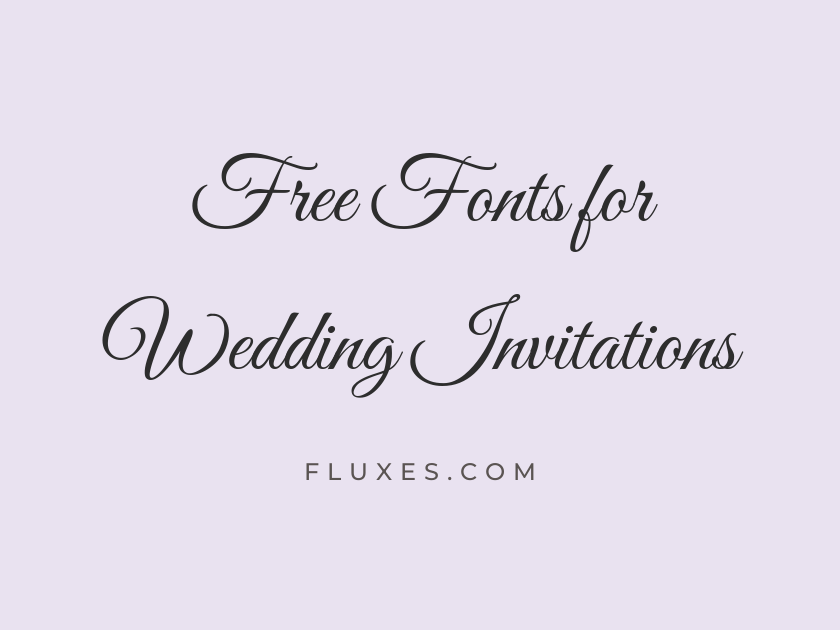
63 Best Free Fonts for Wedding Invitations
Choosing the right typeface for a wedding suite is one of the most personal design decisions a couple will make. The best free wedding fonts on Google Fonts range from sweeping calligraphic scripts that feel handwritten with a fountain pen to restrained serifs and minimalist sans that suit a modern, city-hall affair. Whether the celebration is black-tie formal, rustic and outdoors, or clean and contemporary, there is a free font family here to set the tone before a single guest opens the envelope.
Many of these pairs beautifully with a simple serif or sans for body copy, so look for pairing cues throughout as you build out invitations, save-the-dates, menus, and place cards.
1. Great Vibes
Great Vibes is the reigning favorite of wedding stationers for good reason: its long, confident swashes look like they were penned by a calligrapher who never lifted the nib. It reads beautifully at large display sizes on a monogram or the couple’s names, though it needs generous letter spacing and a plain serif or sans partner for anything smaller, like an RSVP line.
Because it is so widely used, some designers now reach for a slightly less common script for the primary invitation text and save Great Vibes for accents like the date or a closing line.
2. Alex Brush
Alex Brush has a looser, more brush-pen feel than many formal scripts, with letters that appear to speed up and slow down naturally across a word. It suits invitations that want romance without stiffness.
3. Parisienne
There is a soft, feminine roundness to Parisienne that makes it a natural fit for garden and vineyard weddings. The connected lowercase letters keep a gentle rhythm, so it holds up well even in longer phrases like a shared vow line.
4. Allura
Allura splits the difference between delicate and legible, making it one of the more practical formal scripts for an entire invitation rather than just a name or headline. Pair it with a light-weight serif body font and it reads as effortlessly elegant.
5. Pinyon Script
Pinyon Script has real old-world pedigree, its letterforms drawn from 19th-century engraving traditions. Expect tall, dramatic ascenders that work best given plenty of white space around them.
6. Mrs Saint Delafield
This one looks genuinely handwritten, slightly imperfect in the best way, as though a friend addressed the envelope herself. It is a lovely choice for save-the-dates and casual details cards, though best kept short since the loose baseline can get harder to track over long sentences.
7. Sacramento
Sacramento is thinner and more upright than most wedding scripts, giving it a retro, monoline charm reminiscent of mid-century greeting cards. It photographs well on foil-stamped or letterpress invitations.
8. Herr Von Muellerhoff
Ornate and unapologetically romantic, Herr Von Muellerhoff carries the flourish of formal wedding calligraphy without requiring an actual calligrapher. Save it for names and headlines; the elaborate swashes get muddy at small sizes.
9. Tangerine
Tangerine is delicate almost to a fault, with hairline strokes that look gorgeous printed large on heavy cardstock but can disappear on thin paper or low-resolution screens. Use it for a headline moment, not body text.
10. Petit Formal Script
True to its name, Petit Formal Script leans traditional and buttoned-up, closer to engraved wedding stationery from decades past than to a trendy hand-lettered look. It suits couples wanting a classic, old-money feel.
11. Rouge Script
Rouge Script has a bit more weight and bounce than the average formal script, giving it a friendlier, more conversational tone. Good for couples who want elegance without excessive formality.
12. Italianno
The extreme contrast between thick and thin strokes gives Italianno real drama at large sizes, particularly on a couple’s monogram. It is not a font for dense paragraphs; keep it to short, high-impact phrases.
13. Marck Script
Marck Script sits closer to natural handwriting than formal calligraphy, with a slight forward lean and consistent stroke weight. It works nicely for a warm, personal welcome note on a wedding website or program.
14. Kristi
Kristi is quick and casual, almost like a signature, which makes it a charming choice for closing lines such as a couple’s names beneath an RSVP request.
For a cohesive suite across save-the-dates, invitations, and programs, limit yourself to two or three font families total. One script, one serif or sans, and perhaps a decorative capital font for a monogram is usually plenty.
With so many genuinely free, high-quality options on Google Fonts, there is no need to license an expensive commercial typeface to make a wedding suite feel considered and personal. A little restraint in pairing, paired with the right script or serif for the couple’s own style, goes a long way toward an invitation guests will want to keep.